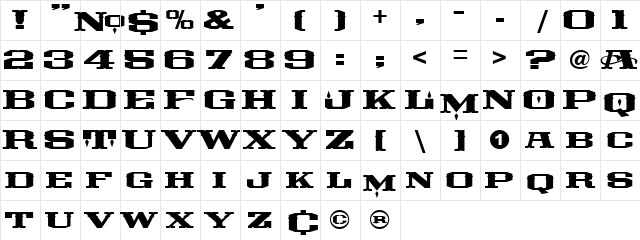
LHF Timberlodge Regular
Design Context for LHF Timberlodge
LHF Timberlodge is a composed and adaptable typeface that performs quietly and consistently across a wide range of design contexts.